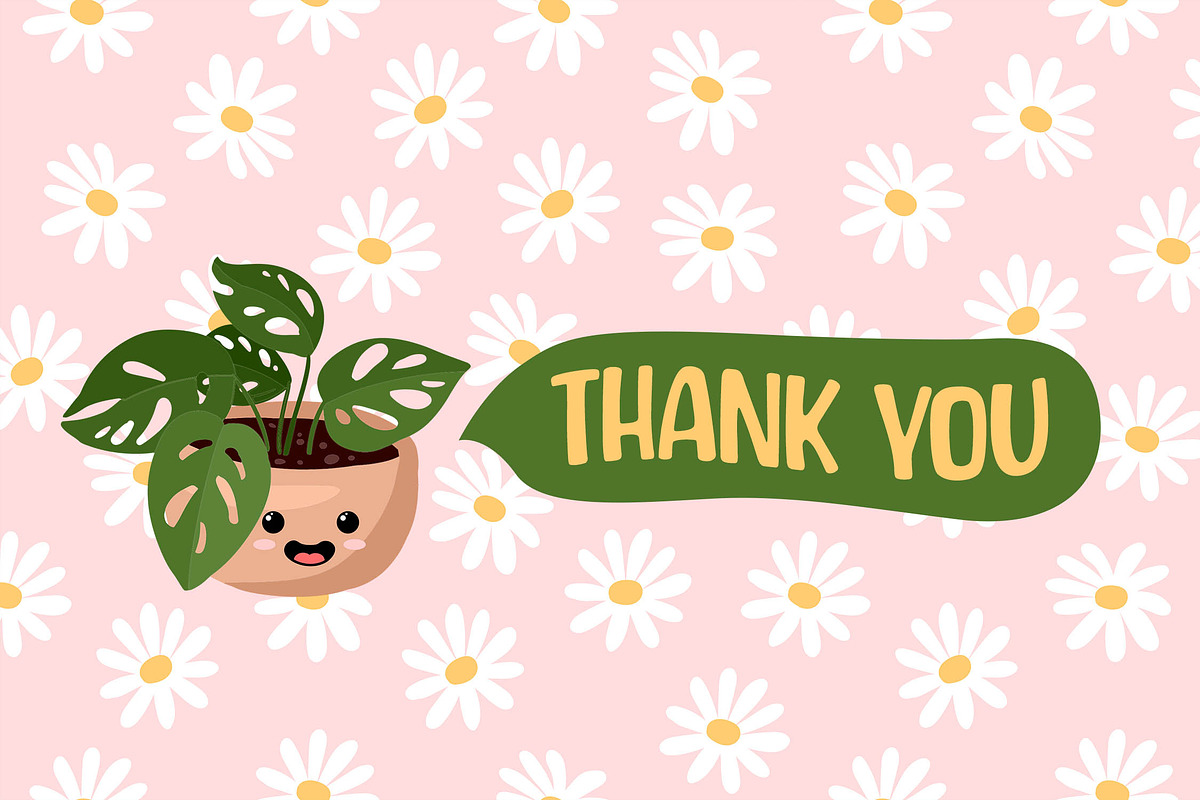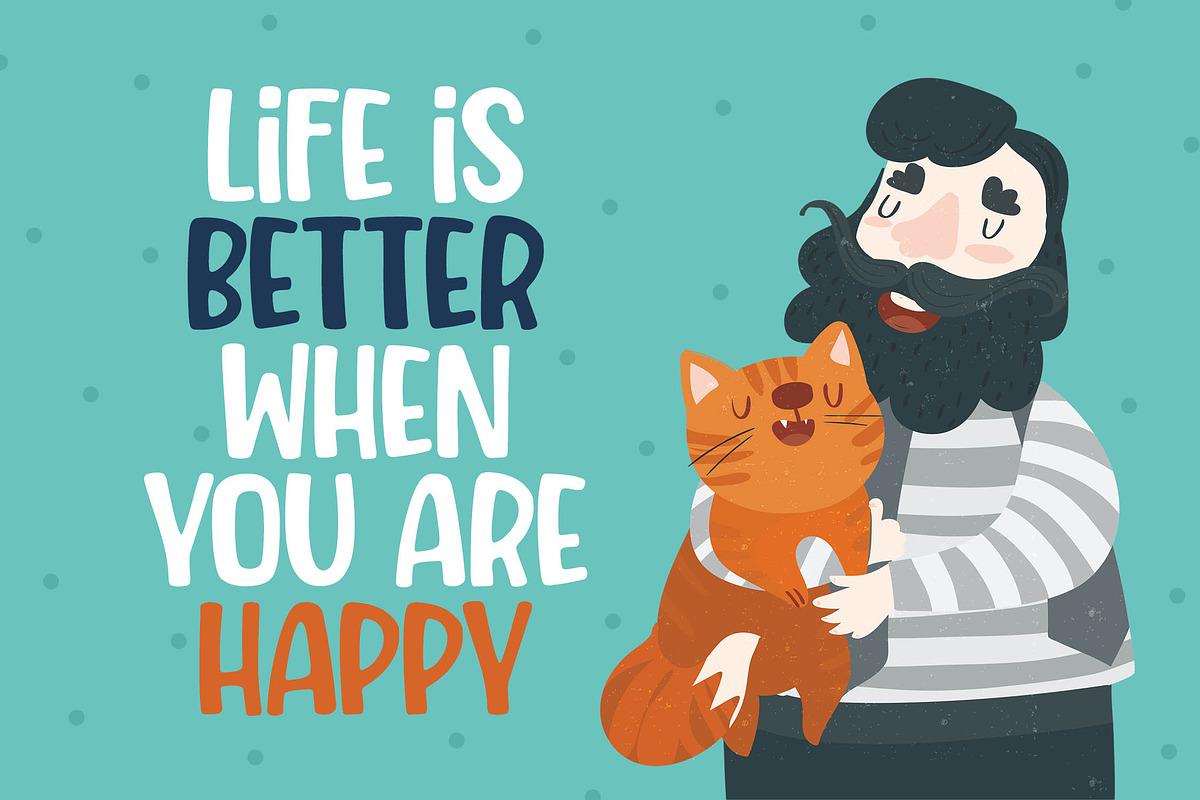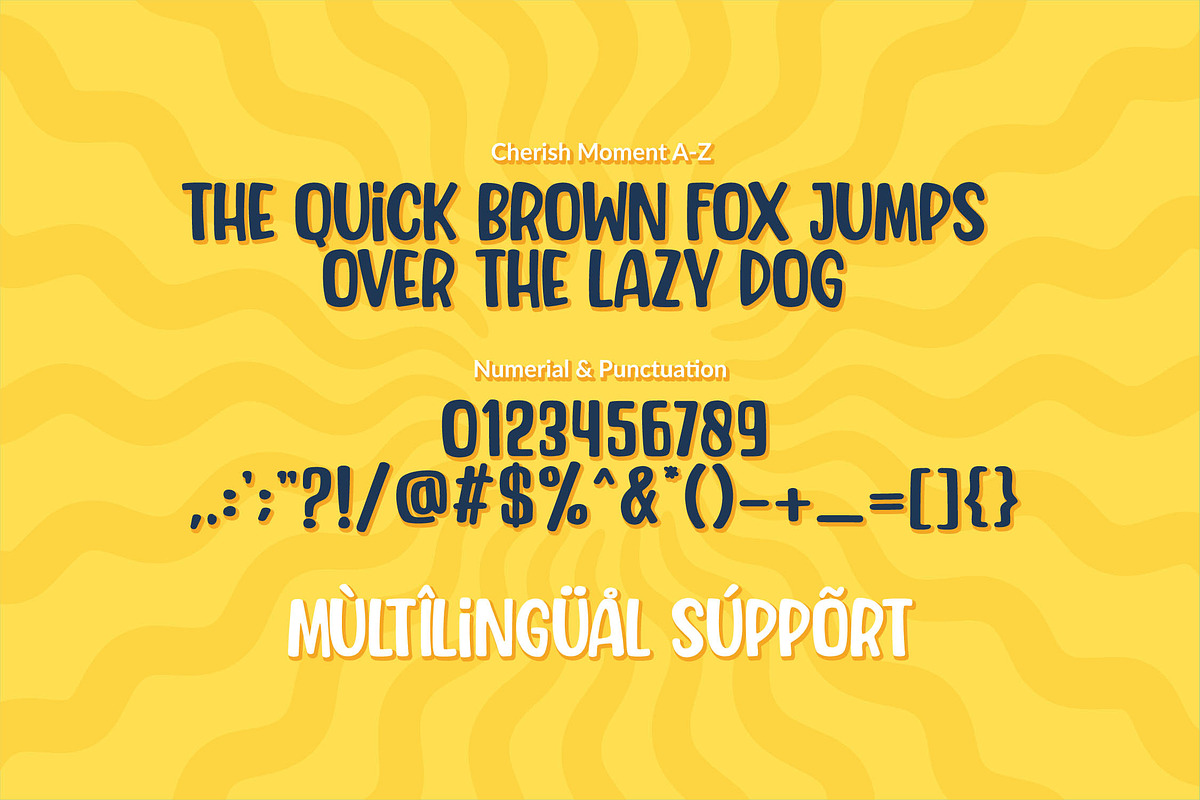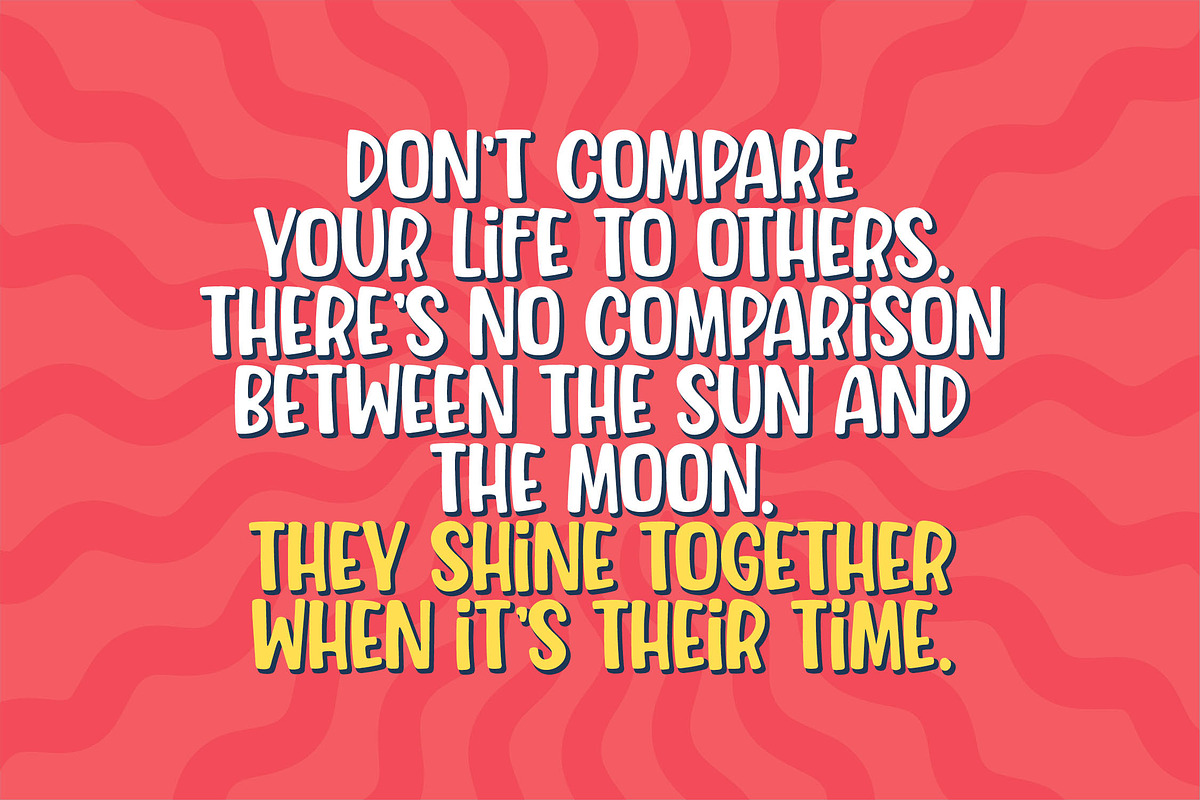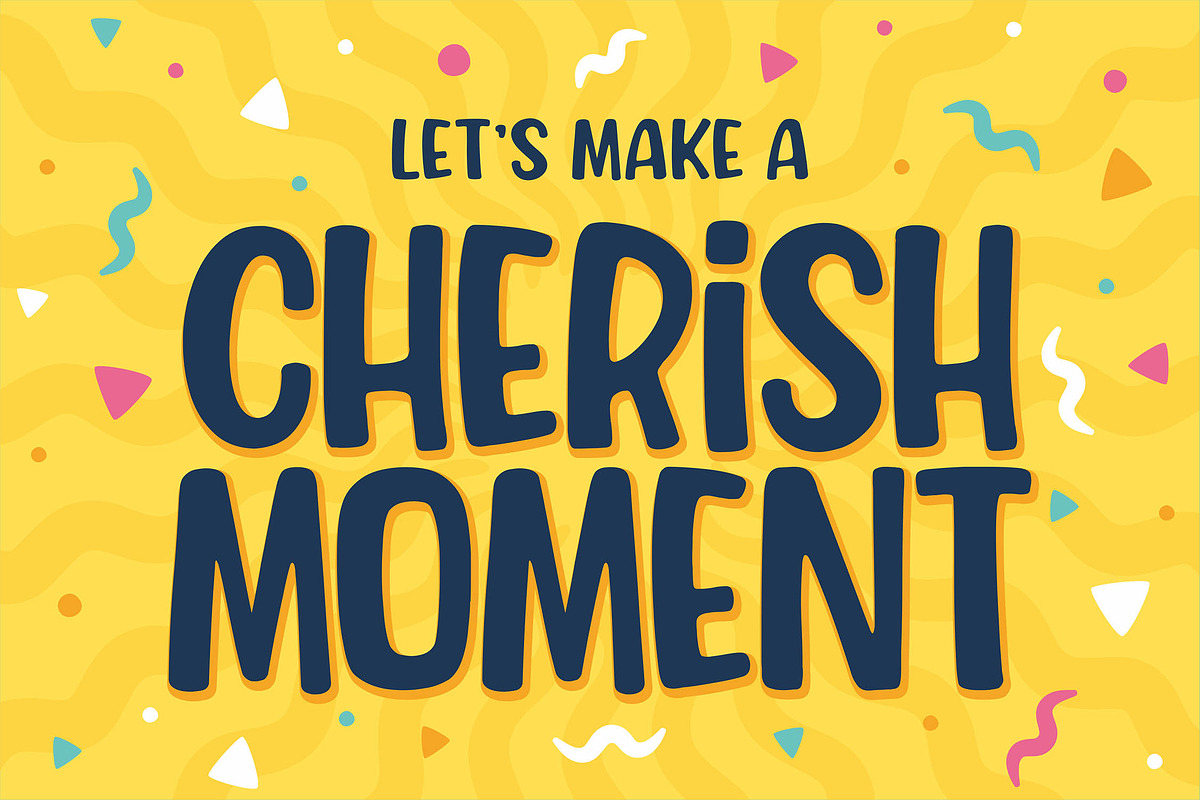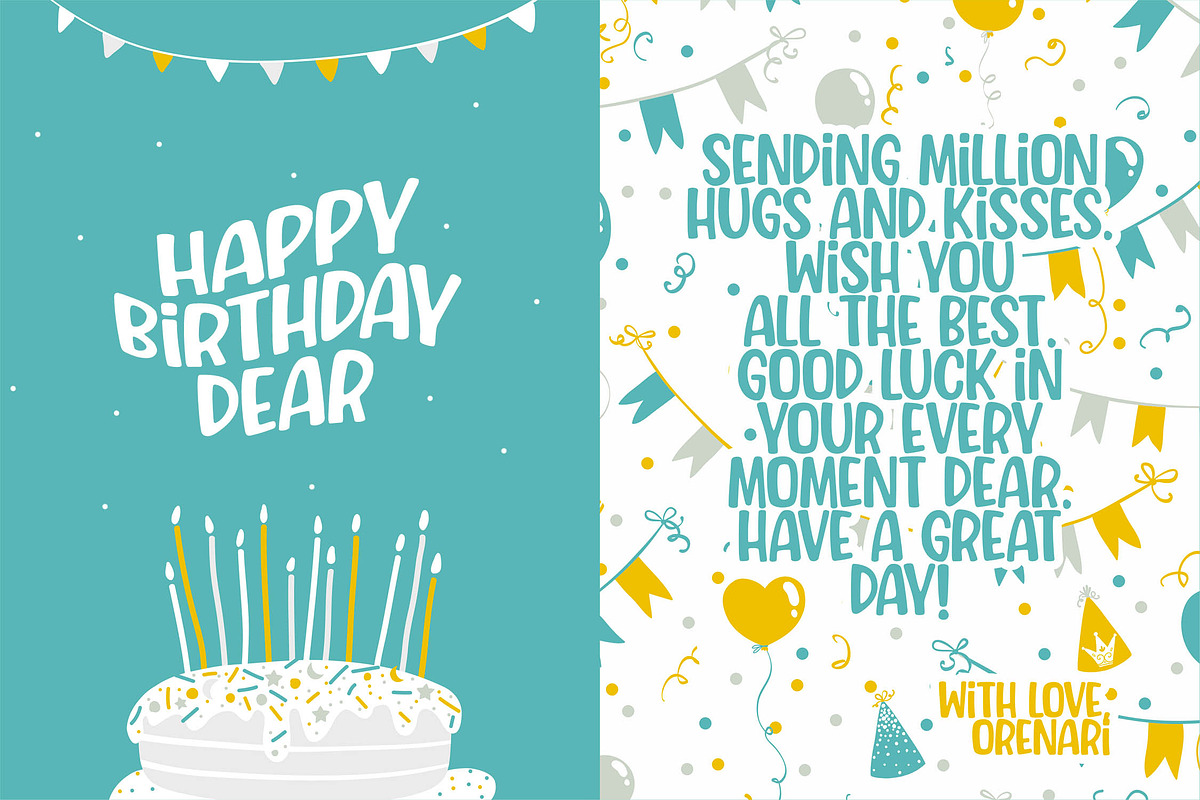
Cherish Moment
Cherish Moment is a fun bold font that will bring happiness and joy. Its natural and cute style makes it incredibly fitting to a large pool of designs and crafts and its perfect for every occasions. Scale up the fun of your design with Cherish Moment.